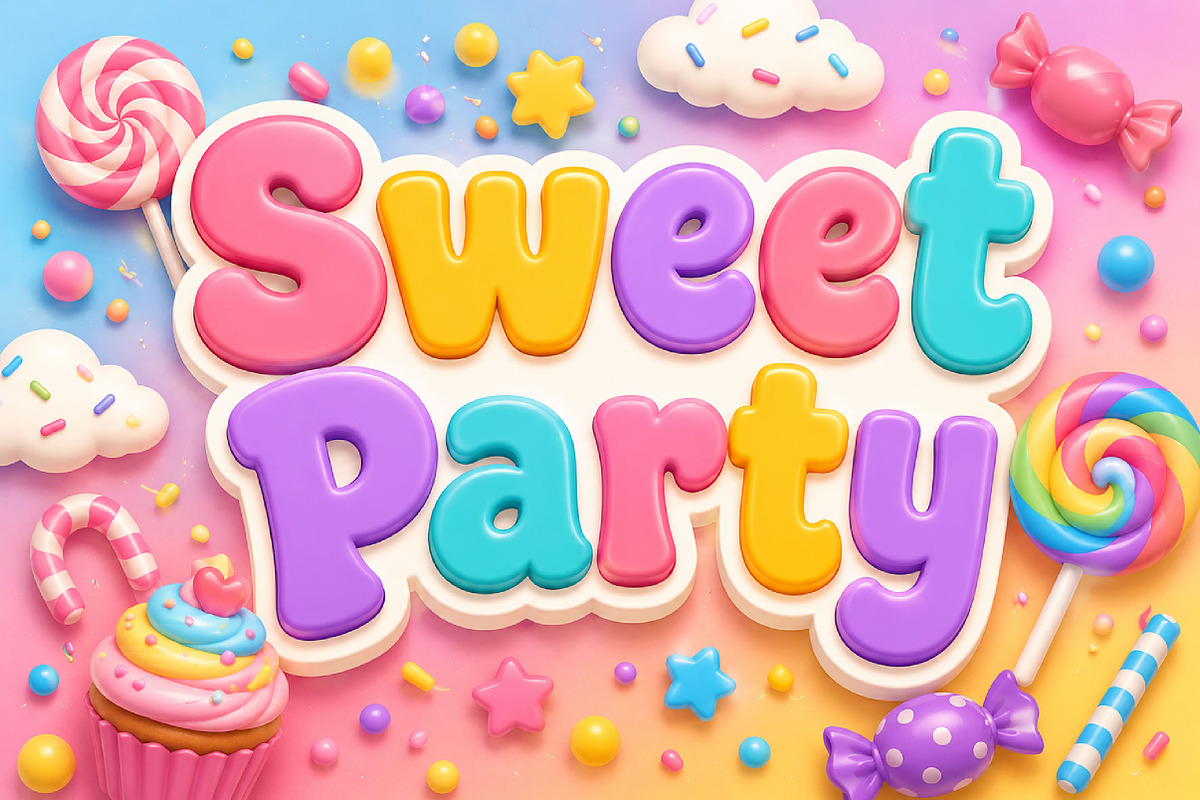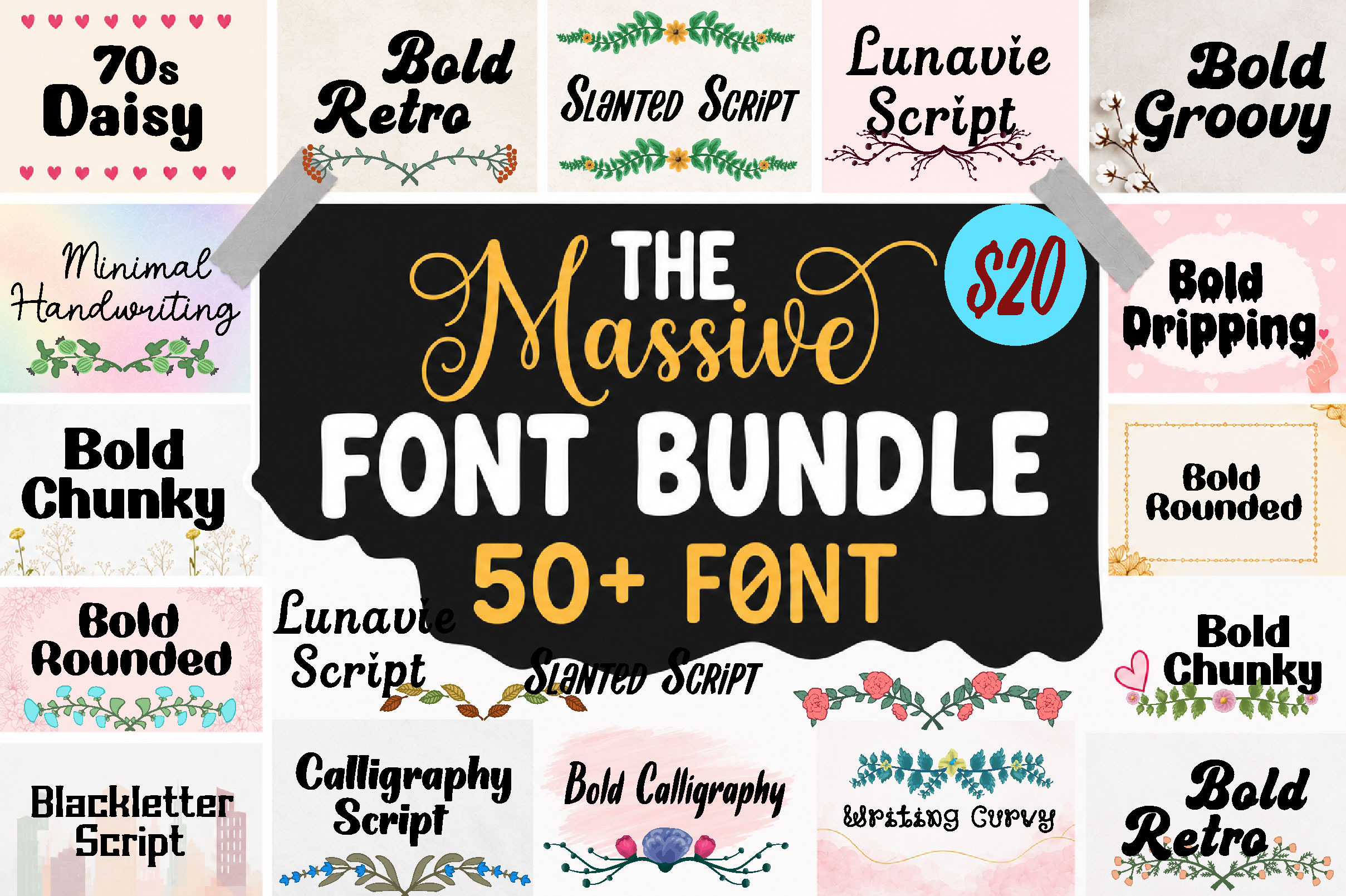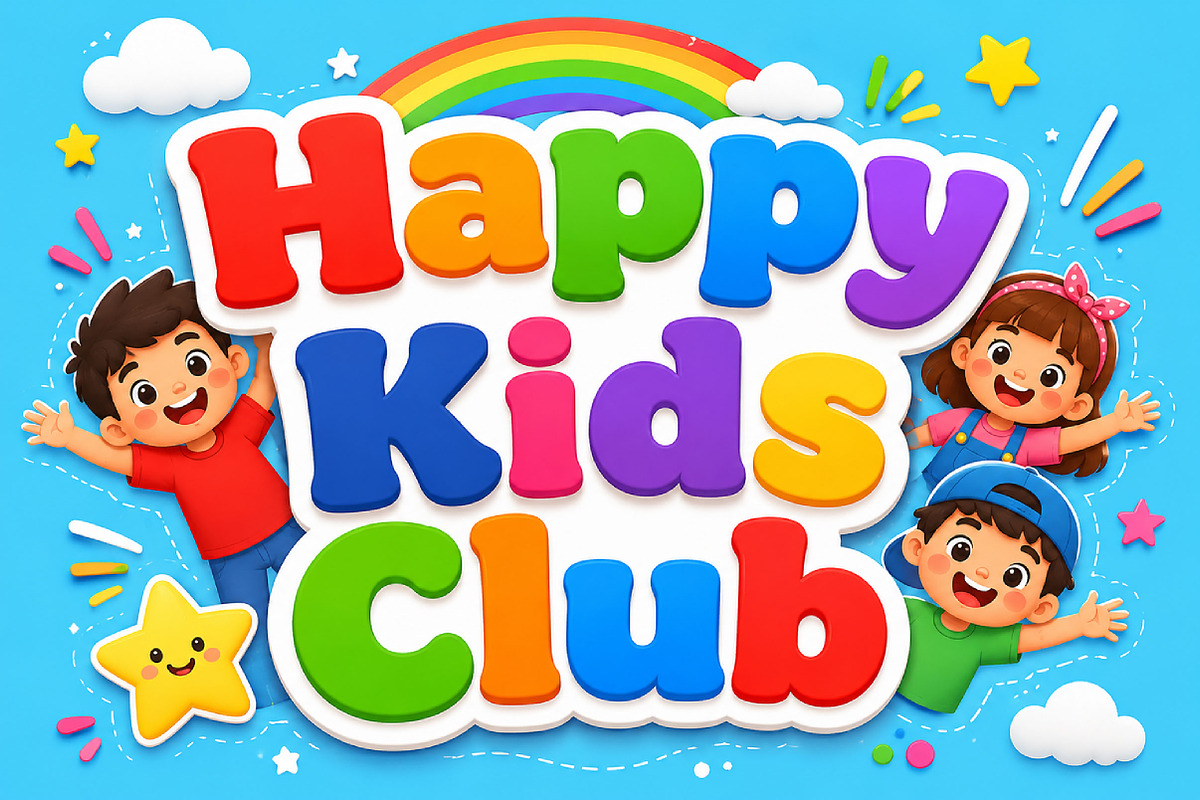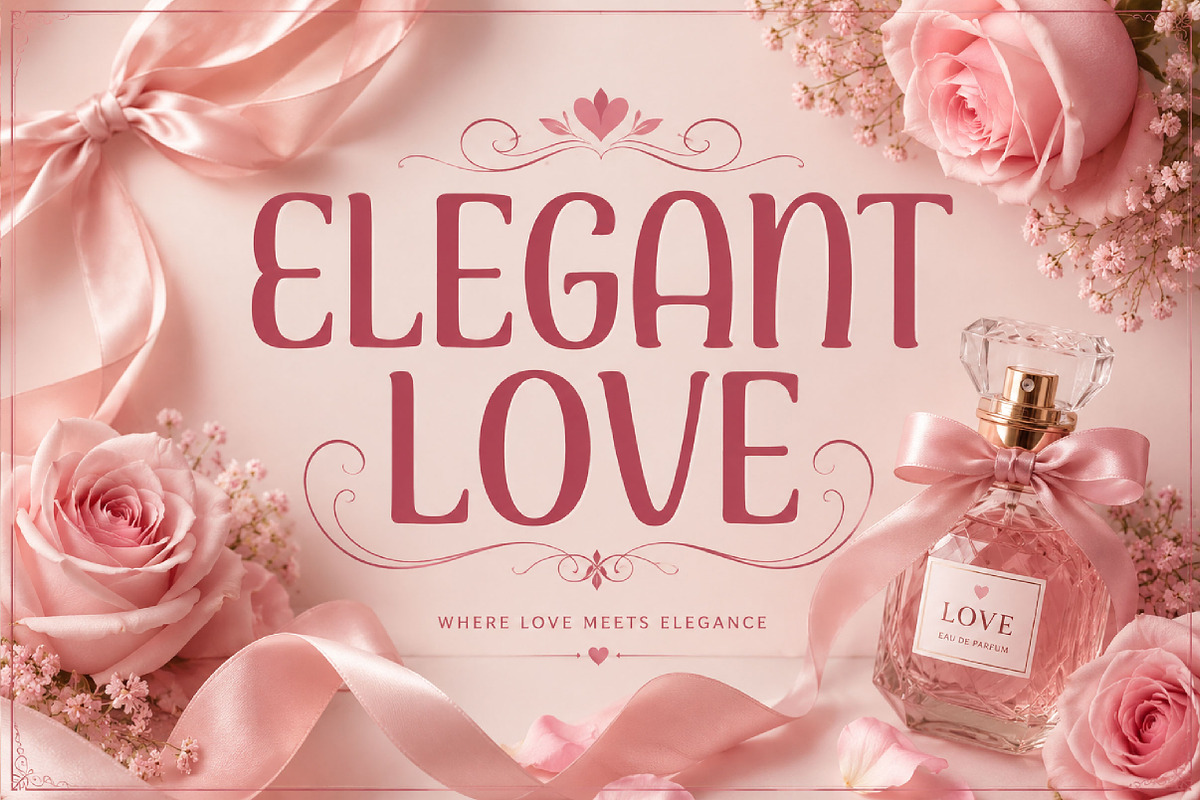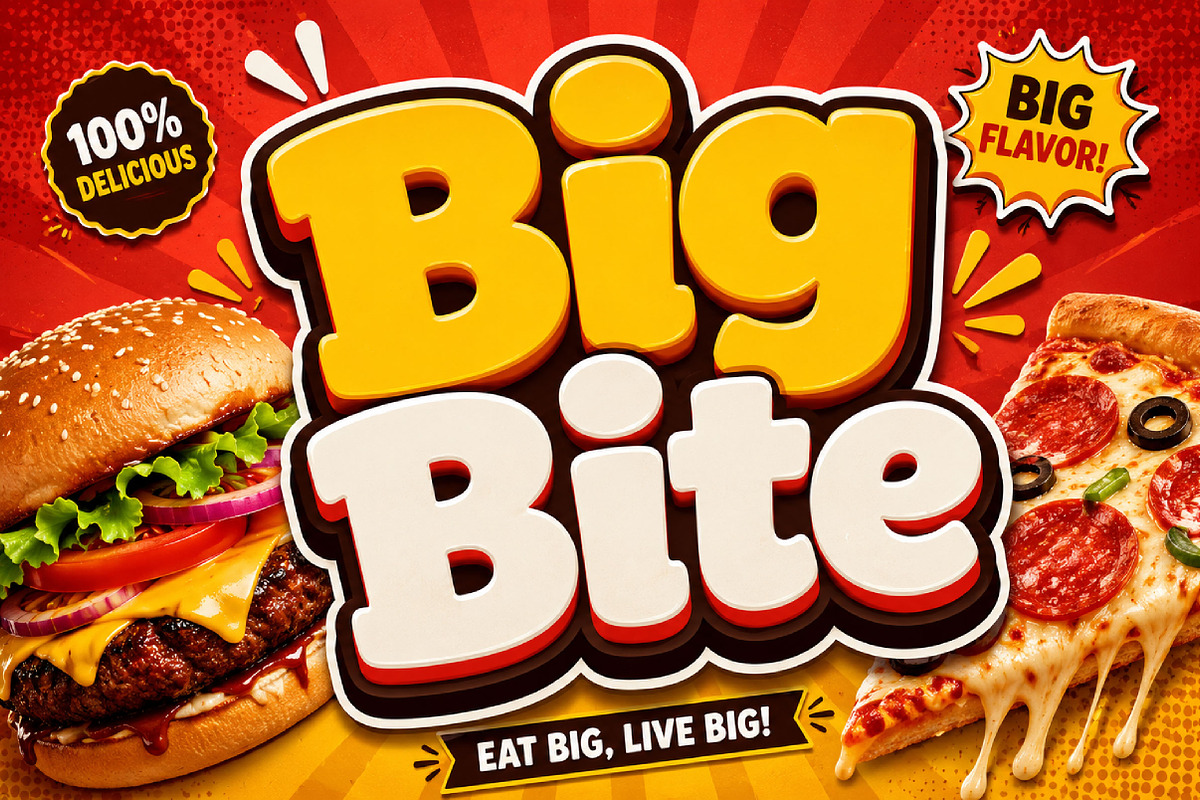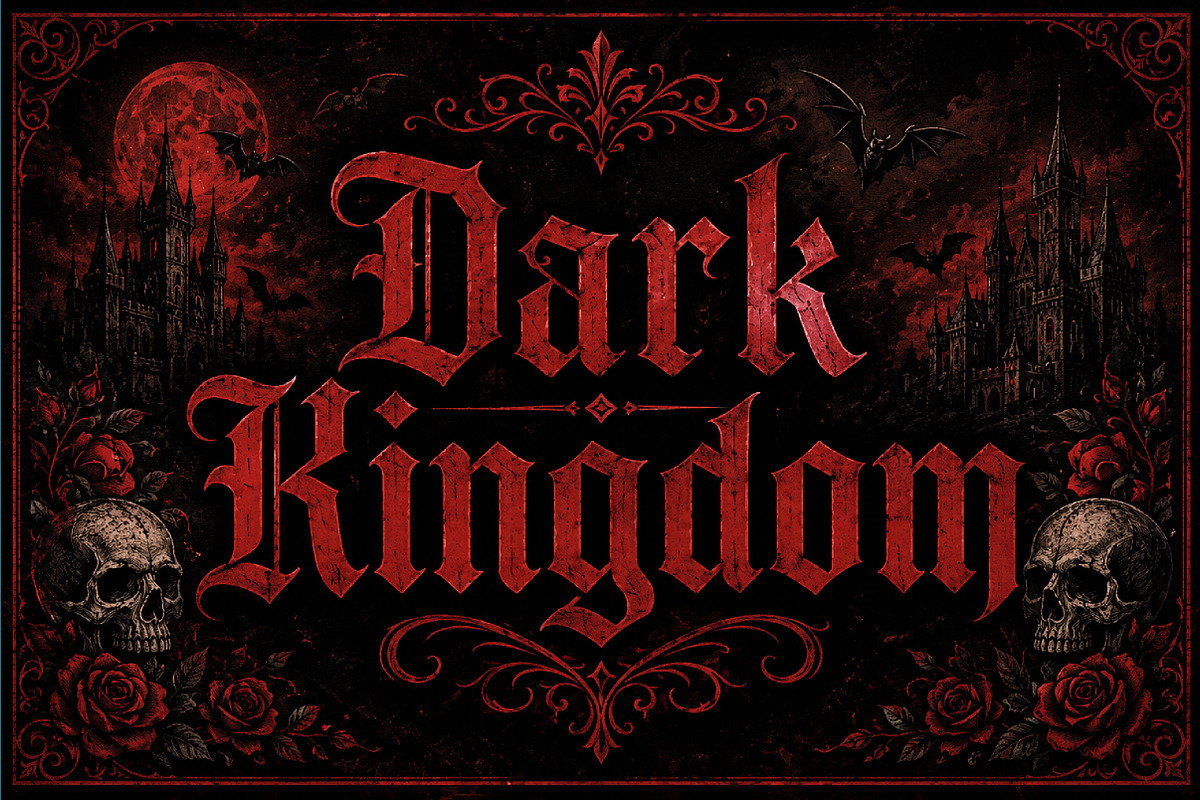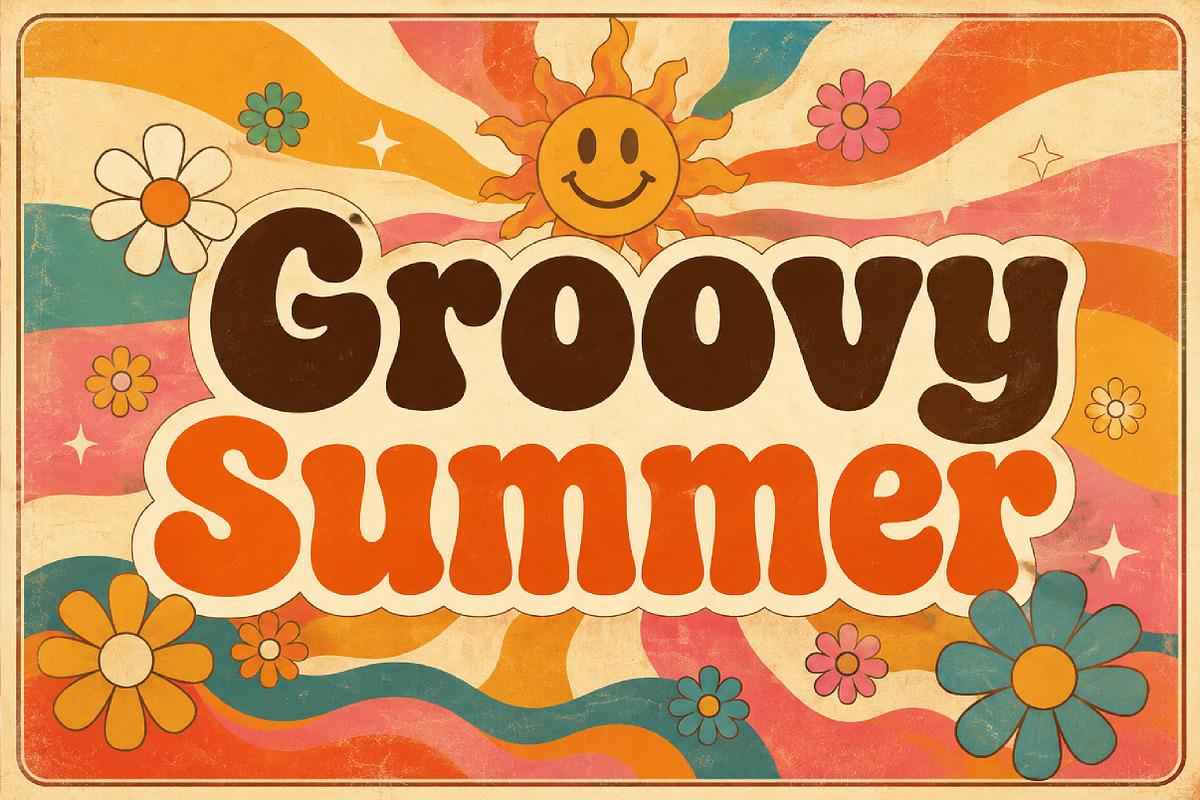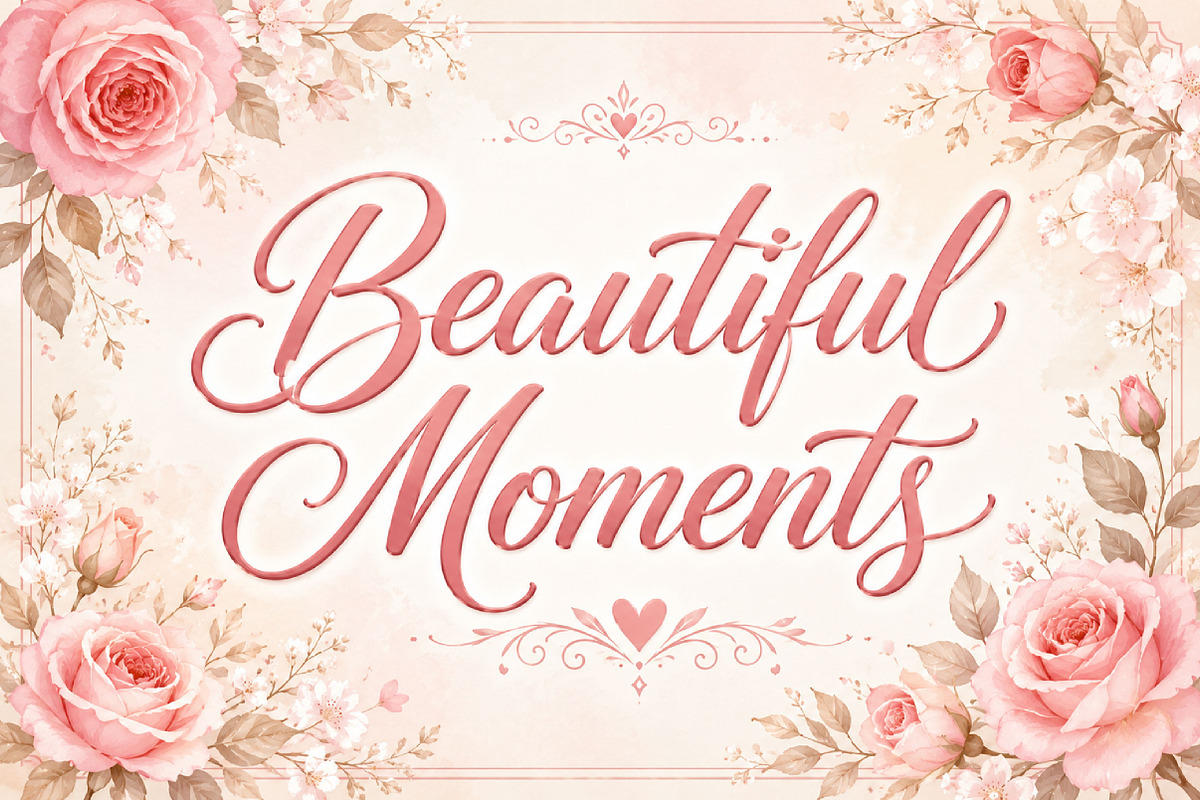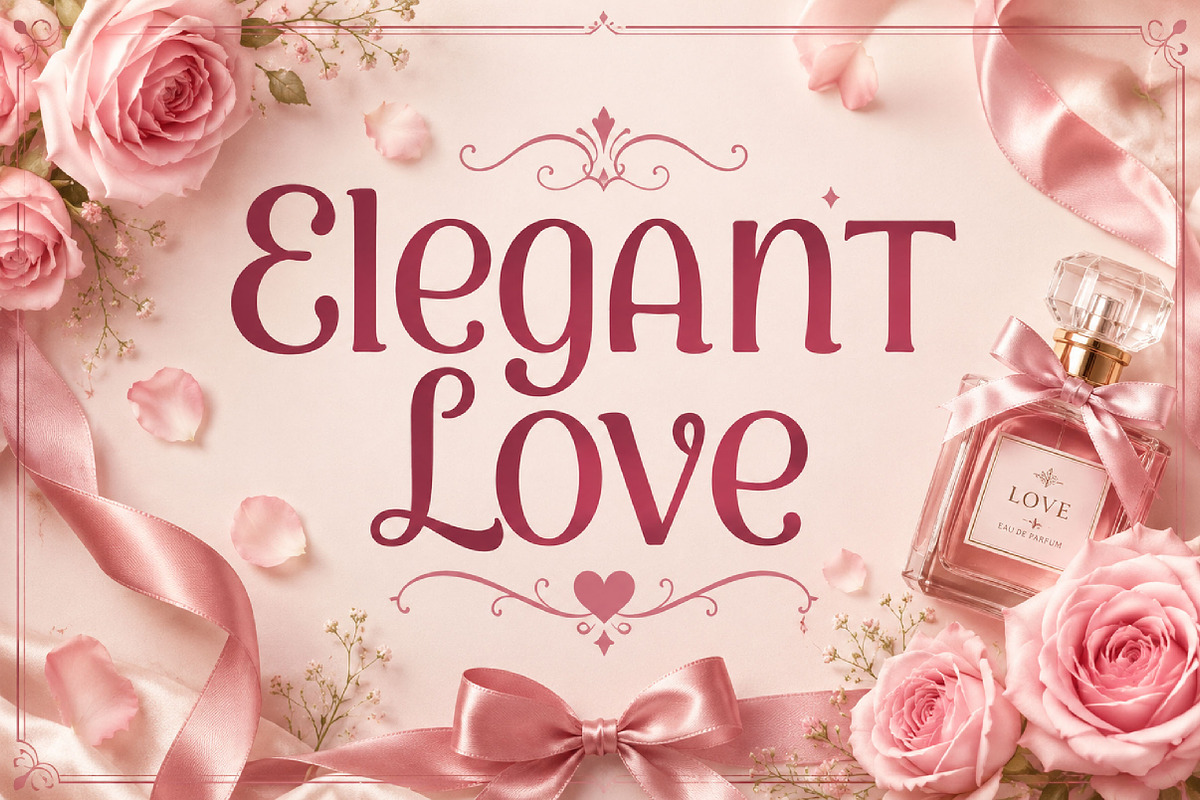
The Massive Font Mega Bundle
50+ Fonts Mega Bundle is a complete typography collection created for designers, crafters, business owners, and creative makers who need many font styles in one powerful bundle. This collection includes more than 50 unique fonts, giving you plenty of options for almost any design project.
Inside this bundle, you will find a variety of font styles including playful display fonts, handwritten fonts, script fonts, bold headline fonts, decorative fonts, retro fonts, serif fonts, gothic fonts, sporty fonts, and creative themed fonts. Each font is designed to help your work look unique, professional, and eye-catching.
Whether you are creating logos, branding, product packaging, posters, invitations, greeting cards, social media graphics, stickers, T-shirt designs, Cricut projects, sublimation designs, or digital products, this bundle gives you the flexibility to design faster and more creatively.
Perfect for both print and digital use, 50+ Fonts Mega Bundle is a great choice for anyone who wants a large, affordable, and highly useful font collection.